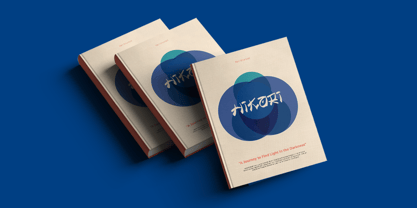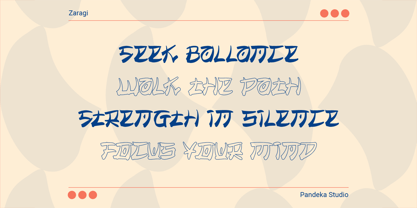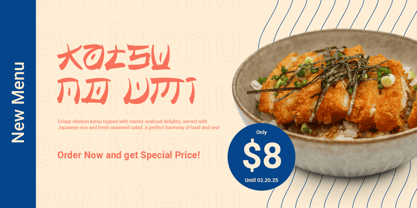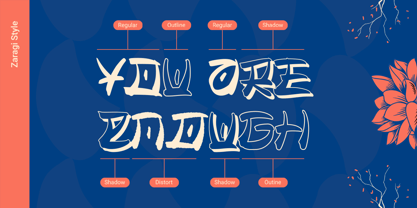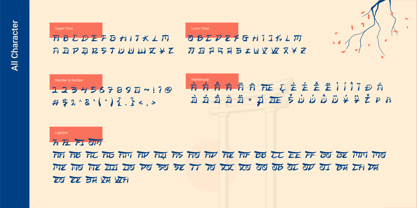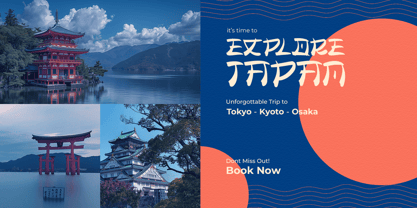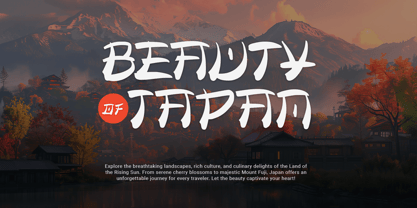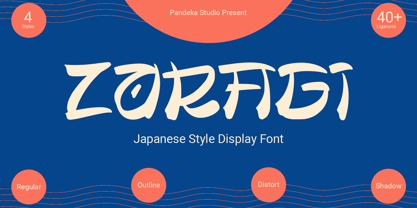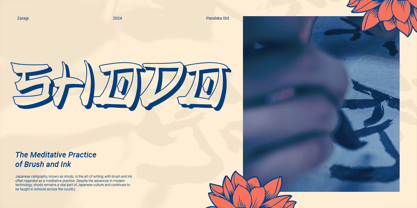
Zaragi
Die Schriftfamilie Zaragi wurde von Sagara Nararya entworfen und von Pandeka Studio veröffentlicht. Zaragi enthält 4 Stile und Familienpaketoptionen. Mehr über diese Familie
Introducing Zaragi, a stunning display font inspired by the beauty of Japanese and Korean aesthetics. Combining traditional East Asian charm with a modern touch, Zaragi is the perfect choice for bringing authentic Asian vibes into your designs.
Each letter in Zaragi is carefully crafted, blending traditional artistic elements with contemporary styles. With 30+ unique ligatures and alternates, you can easily create distinctive and captivating typography compositions. This font is ideal for branding, posters, packaging, social media designs, and so much more!
• 4 Styles: Regular, Outline, Distort, Shadow
• Full Character Set: uppercase, lowercase, numbers, symbols, punctuation and ligature
• 40+ Unique Ligatures for creative and unique combinations